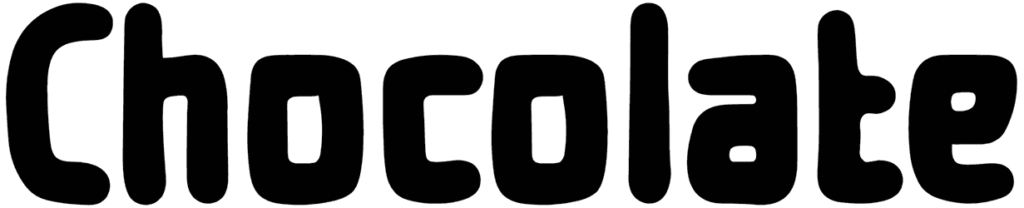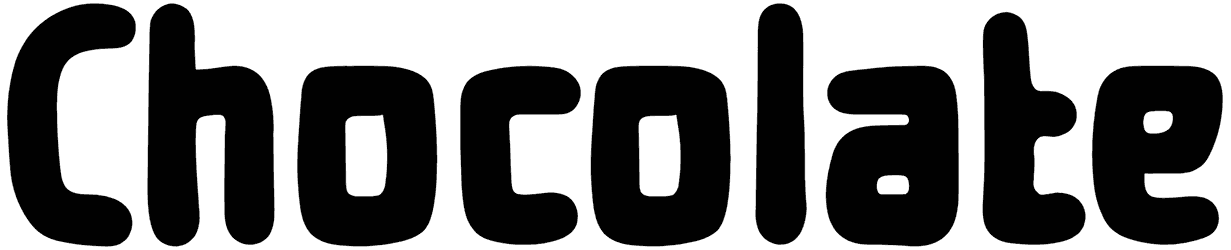
Chocolate Font
Chocolate is a handwritten font with a dignified space on the page and will be ideal for all kinds of informal projects. This kindergarten font has a fancy and almost simple look that makes everyone like it at first sight.
So if you want to get your audience interested in your packaging design, t-shirt design, or website ads, Chocolate is versatile enough. So go ahead and start creating some cool effects.